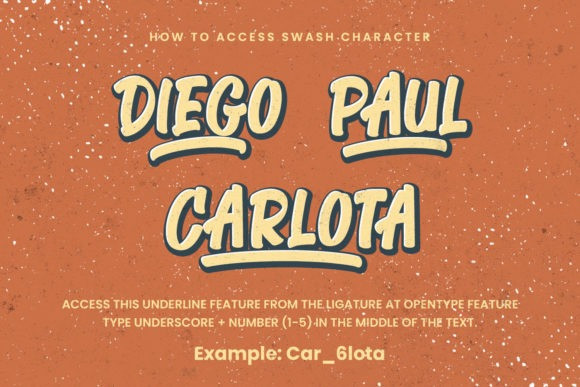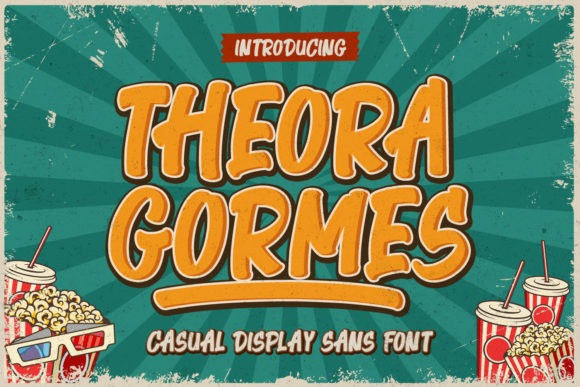
Theora Gormes Font
Theora Gormes Display Font is a cartoon-like and chunky lettered display font. Add it to your most creative ideas and notice how it makes them come alive!